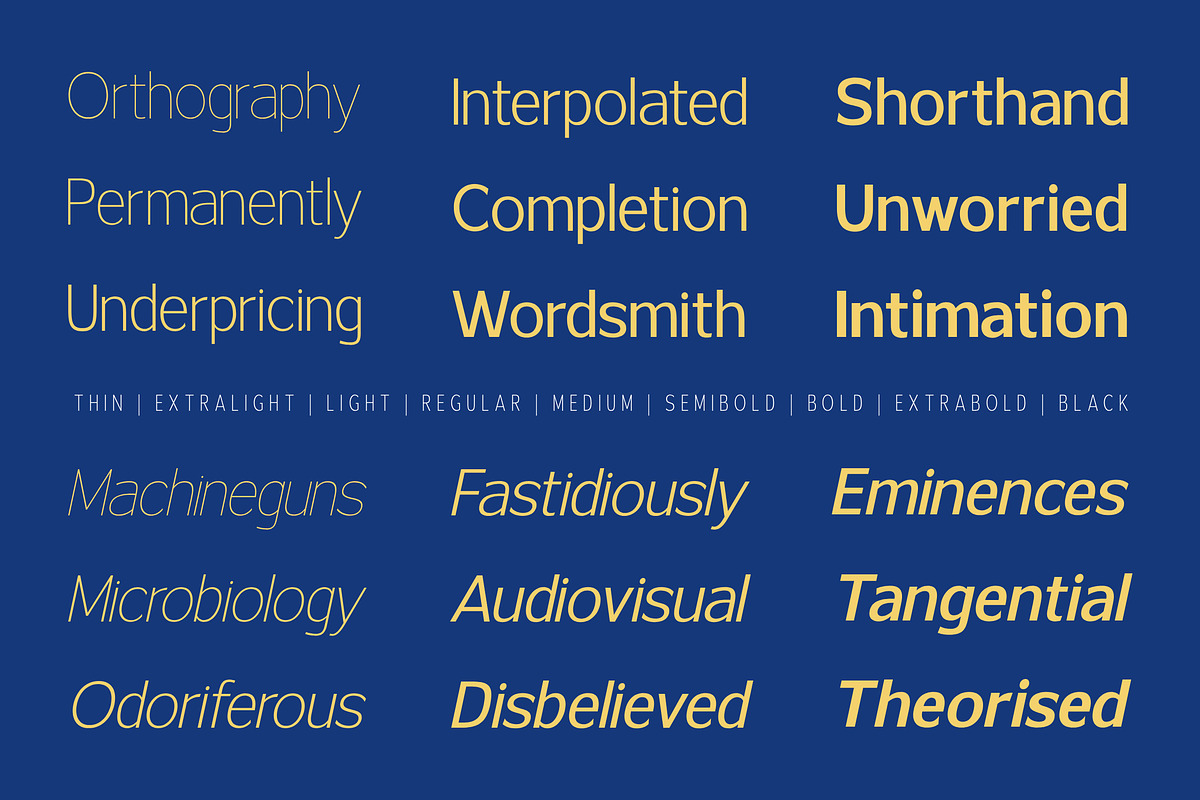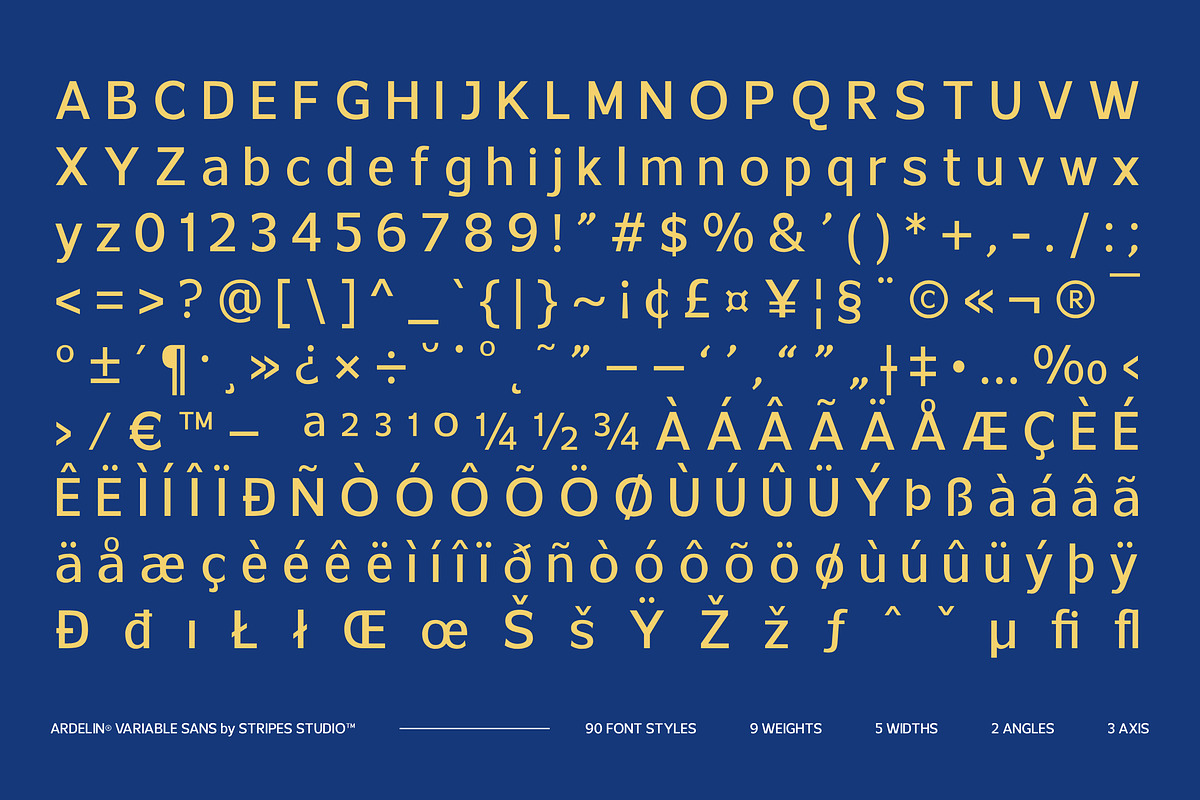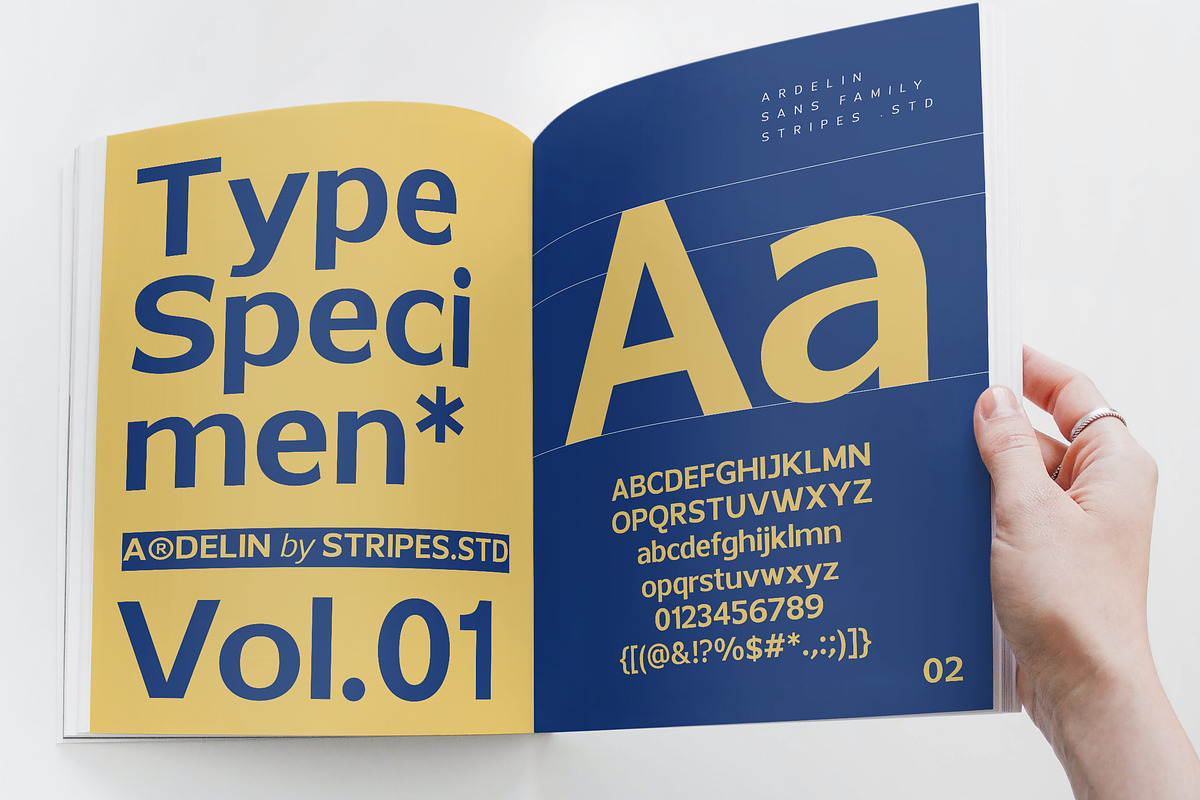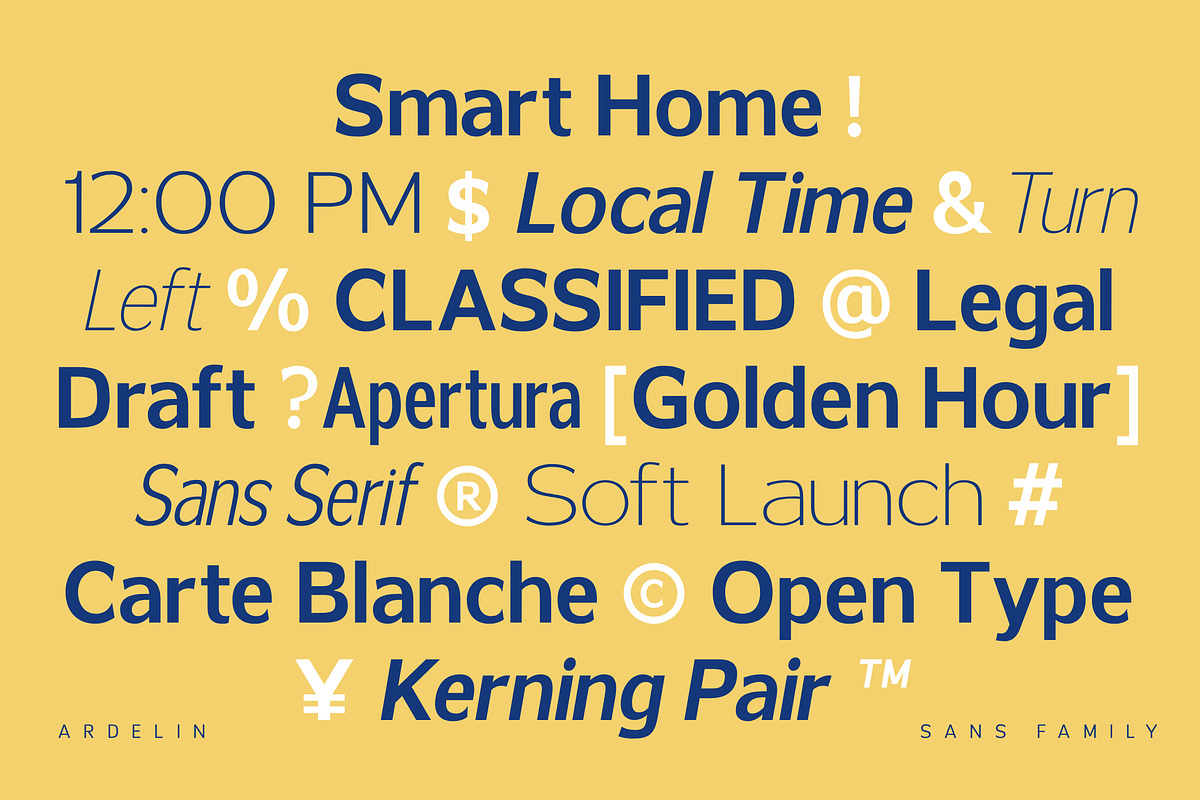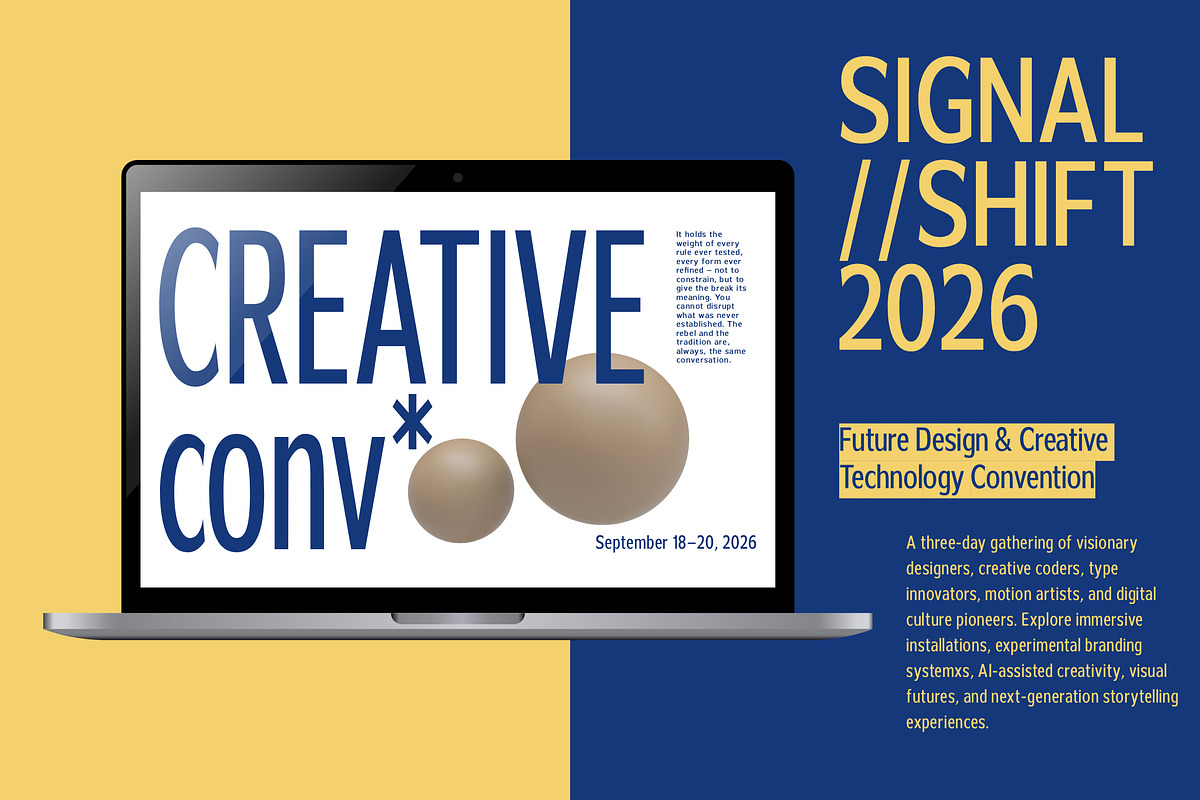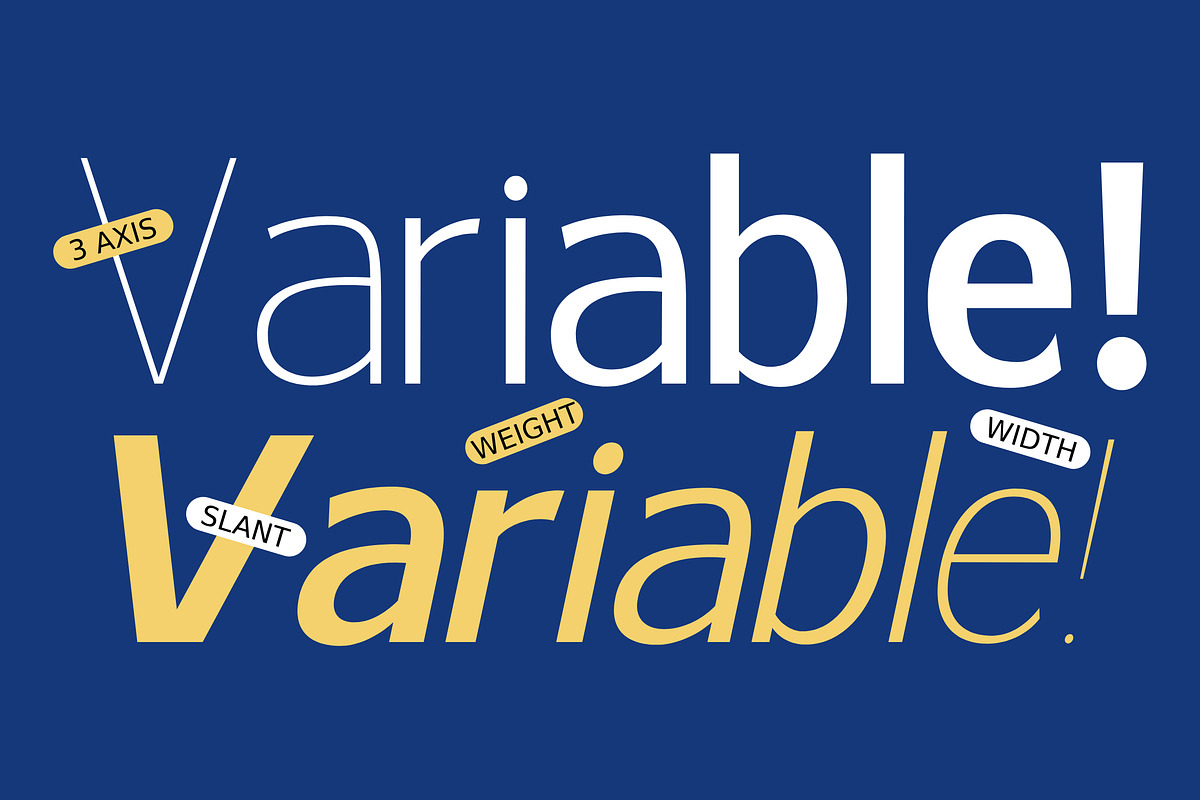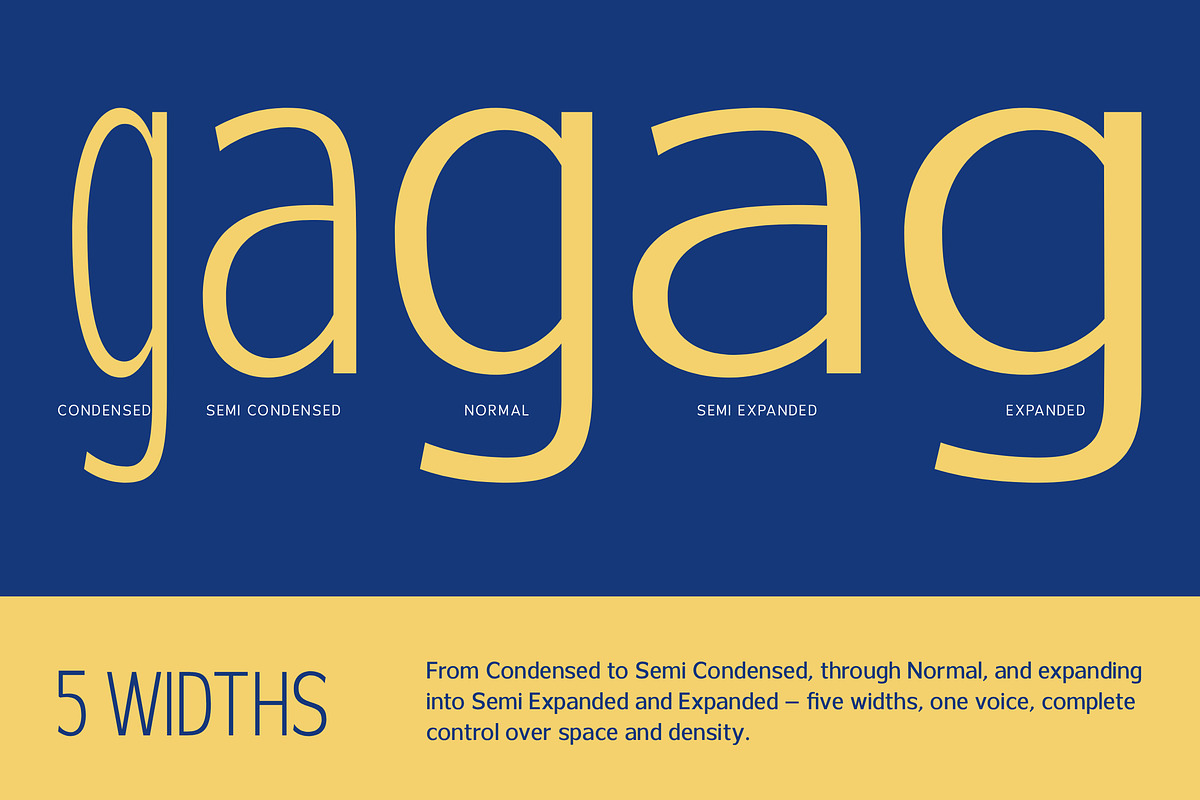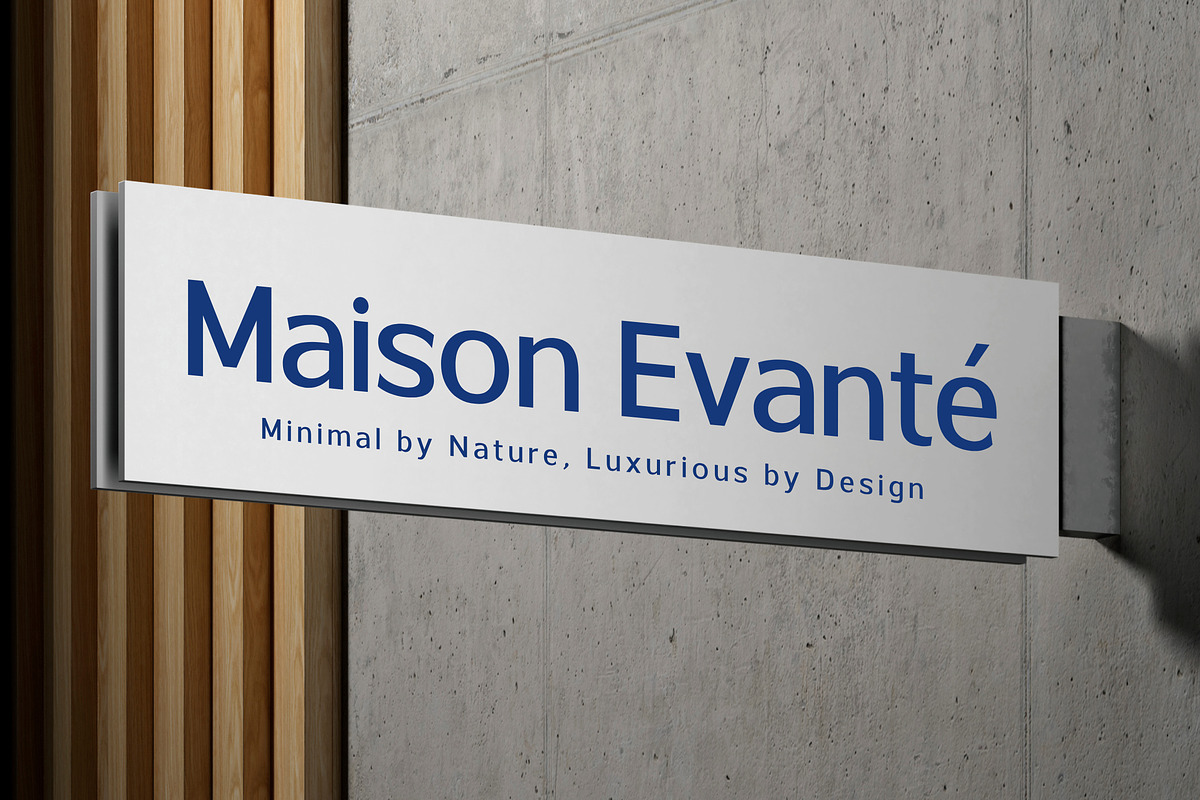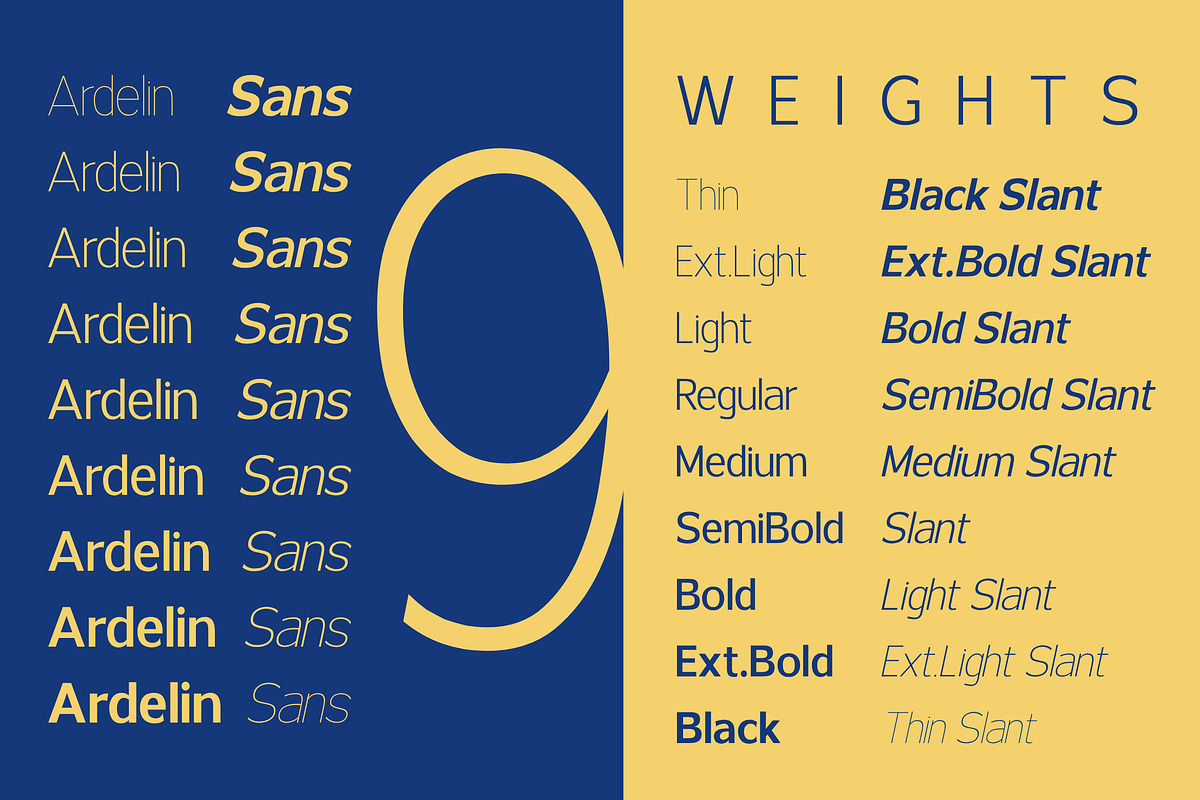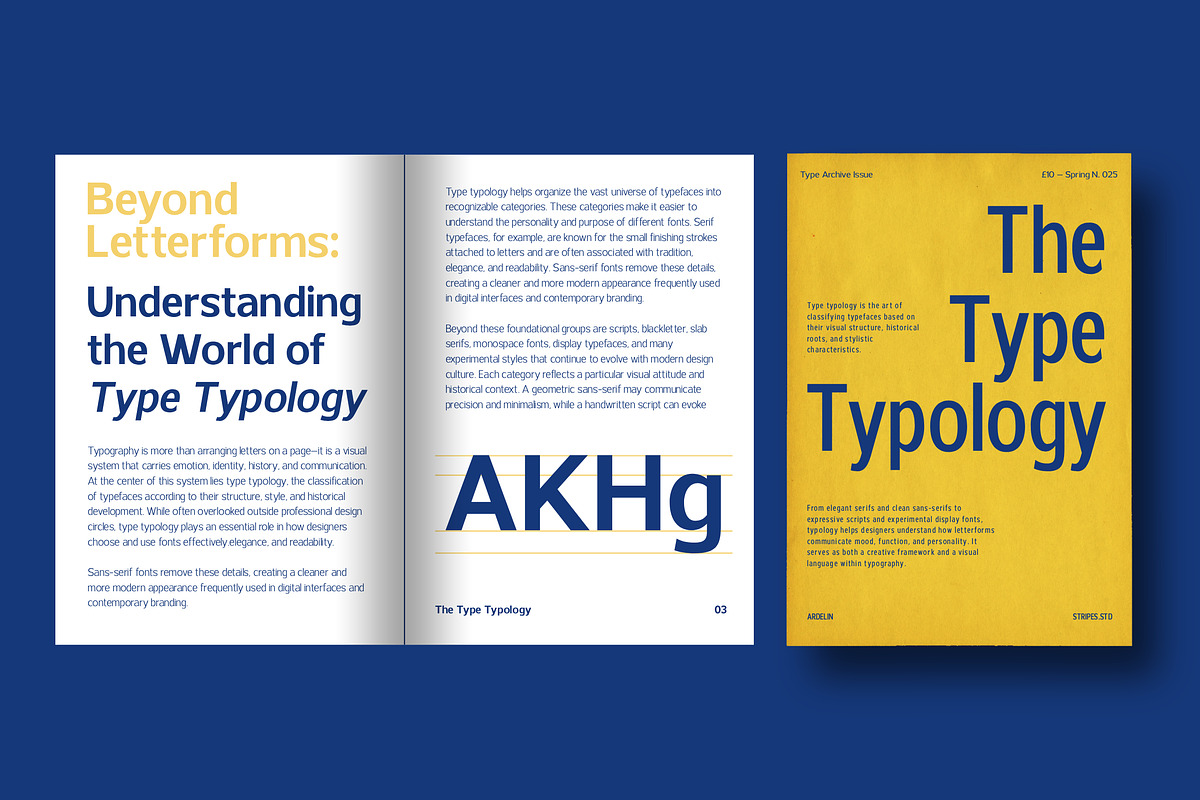
Ardelin Variable
Ardelin is a modern sans serif typeface designed with clean lines, balanced proportions, and a minimalist aesthetic. Combining simplicity with elegance, Ardelin offers a sleek and contemporary appearance that feels both professional and stylish.
Its versatile character makes it ideal for branding, logos, web design, packaging, social media, and modern editorial layouts. With smooth curves, refined spacing, and excellent readability, Ardelin creates a fresh, sophisticated, and confident visual identity for any creative project.